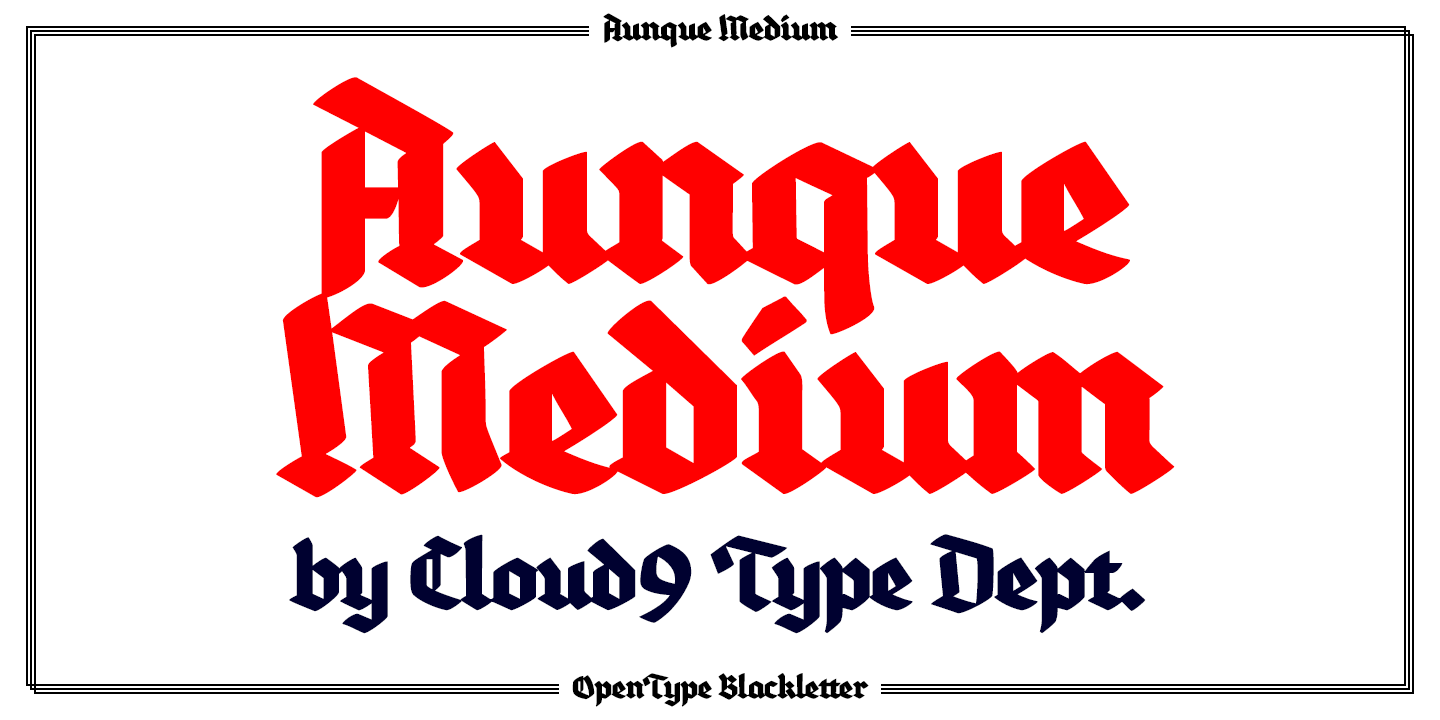
Aunque Font excels in Latin cultural branding, Spanish heritage projects, Hispanic community communications, bilingual educational materials, Latin American tourism campaigns, multicultural event promotions, Spanish language publications, Latino business identities, cultural festival graphics, and international diversity marketing. Its Latin character makes it perfect for projects requiring cultural authenticity and Hispanic visual appeal that celebrates Latin heritage and community.
What makes Aunque Font exciting is its authentic embodiment of Latin warmth and Hispanic cultural richness through letterforms that capture the passionate spirit and vibrant community values of Spanish-speaking cultures. The font features expressive curves with cultural proportions that convey the warmth and solidarity of Latin communities while maintaining excellent readability for bilingual communications. Its Latin character transforms ordinary text into expressions of cultural pride that resonate with Hispanic audiences and celebrate multicultural diversity.
The Aunque Font family includes Regular, Bold, Light, Cultural, Heritage, Vibrant, and Community variations. Each style preserves the font's Latin essence while offering different levels of cultural authenticity and Hispanic weight for creating genuine multicultural graphics. The comprehensive character set includes Latin symbols, cultural ornaments, Hispanic decorations, and community glyphs essential for authentic Spanish-language and Latino typography projects.
Hispanic organizations and multicultural brands consistently choose Aunque Font Free Download for projects demanding authentic Latin typography solutions. The font's cultural character instantly establishes Hispanic credibility while ensuring clear communication across Spanish-speaking marketing channels. Its versatility spans from subtle cultural touches to bold statements that celebrate the rich traditions and vibrant community spirit of Latin American and Hispanic cultures worldwide.
Whether you're developing Latino brand identities, creating bilingual marketing materials, or designing multicultural communications, Aunque Font provides the perfect combination of cultural authenticity and contemporary functionality. The font's culturally crafted letterforms ensure genuine Hispanic character while maintaining excellent performance across various multicultural applications and Latino business communications.
The cultural heritage of Aunque Font makes it exceptional for creating meaningful connections with Hispanic audiences who value cultural pride and community traditions. Its Latin precision and vibrant appeal work seamlessly across traditional Hispanic materials and modern digital multicultural platforms. The font performs passionately in both large-scale cultural displays and intimate community communications.
Celebrate cultural diversity with Aunque Font and discover how authentic Latin typography can enhance your multicultural projects with genuine Hispanic appeal and cultural sophistication. This remarkable typeface combines Latino tradition with contemporary functionality, making it indispensable for organizations celebrating the rich heritage and vibrant community spirit of Spanish-speaking cultures and Hispanic communities.